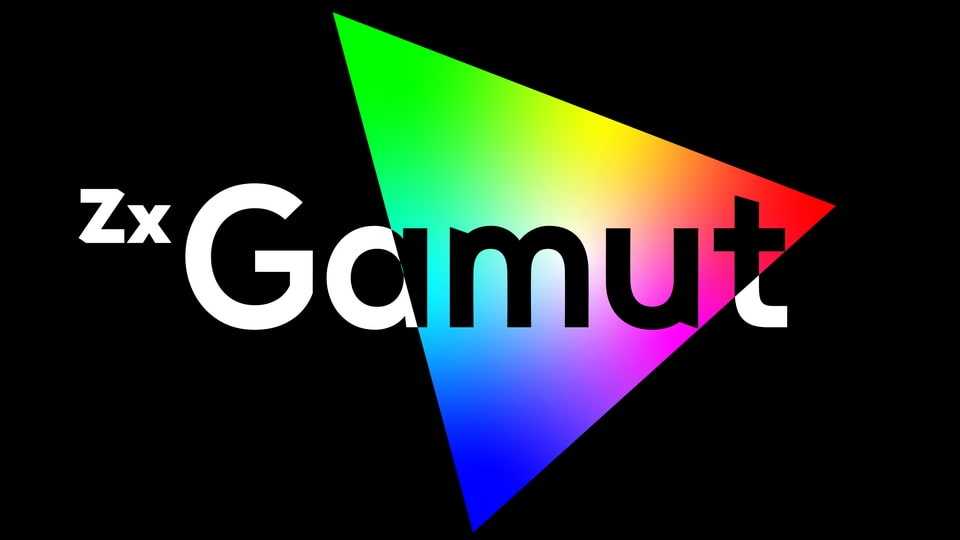
Download Zx Gamut font, a modern geometric variable sans serif typeface that seamlessly blends rounded letterforms with sharp angles, a versatile choice for contemporary design.
Designer: 0xType